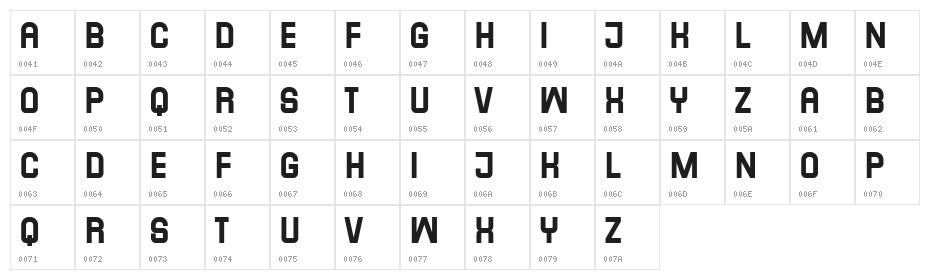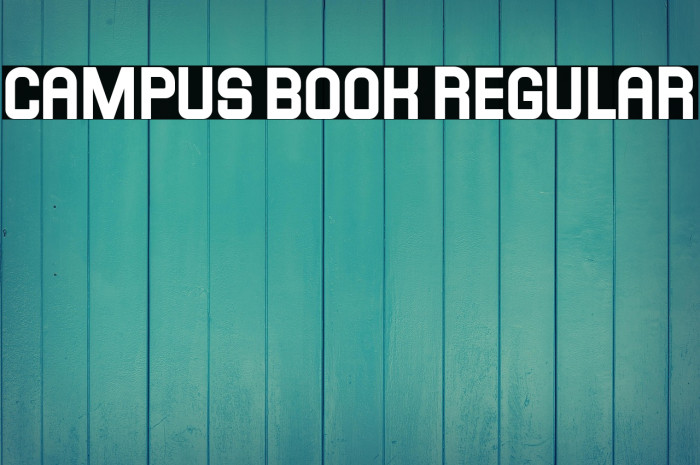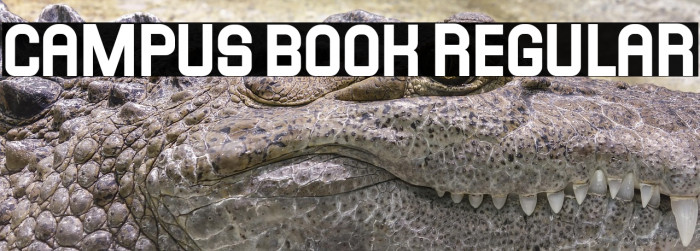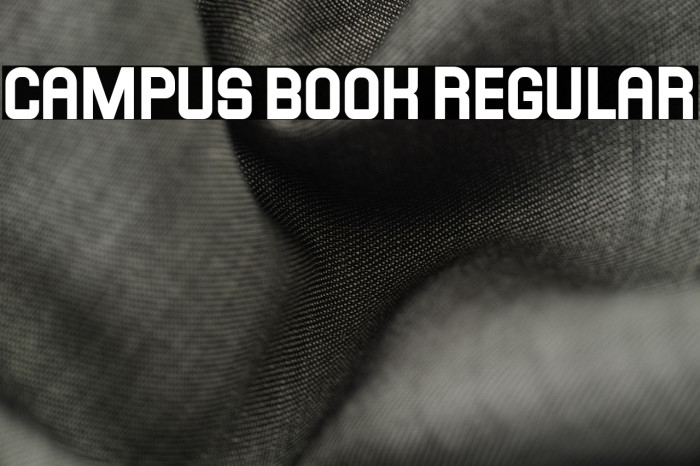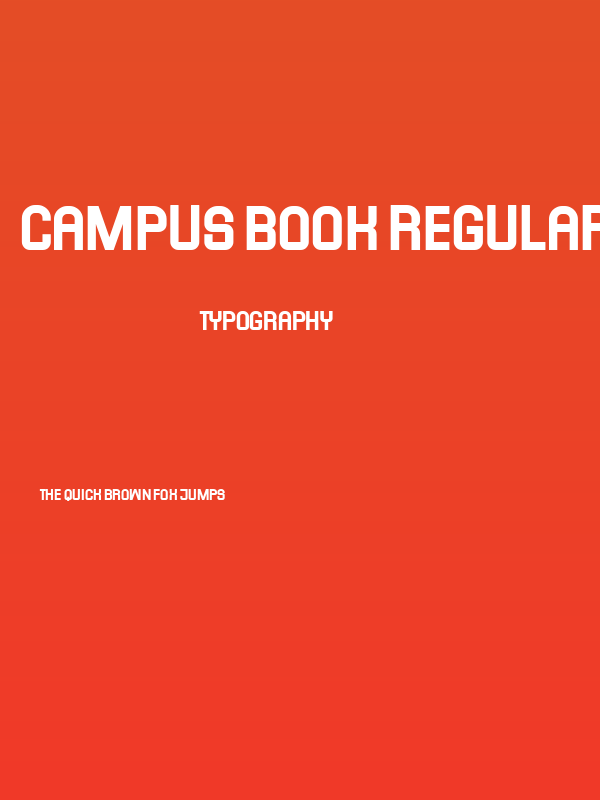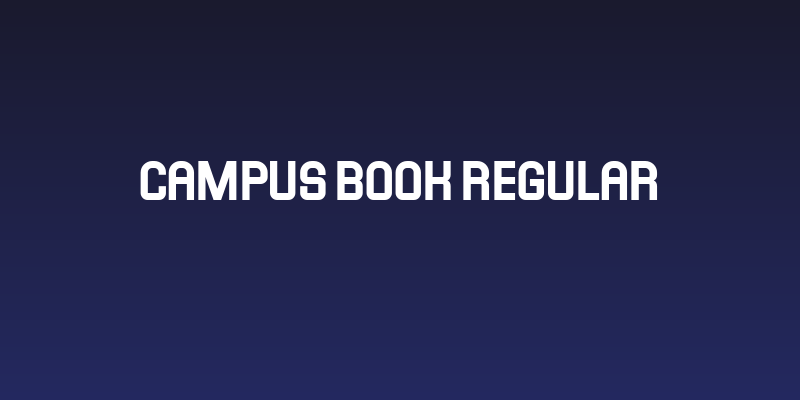
Campus Book Regular Font
Campus Book Regular Description
This font features a bold and geometric style with a strong presence. The characters are uniformly structured with a consistent stroke width, giving it a modern and robust appearance. The uppercase letters are particularly striking, with a blocky and angular design that conveys strength and stability. The font's clean lines and lack of serifs contribute to its contemporary feel, making it suitable for a variety of design applications where clarity and impact are desired.